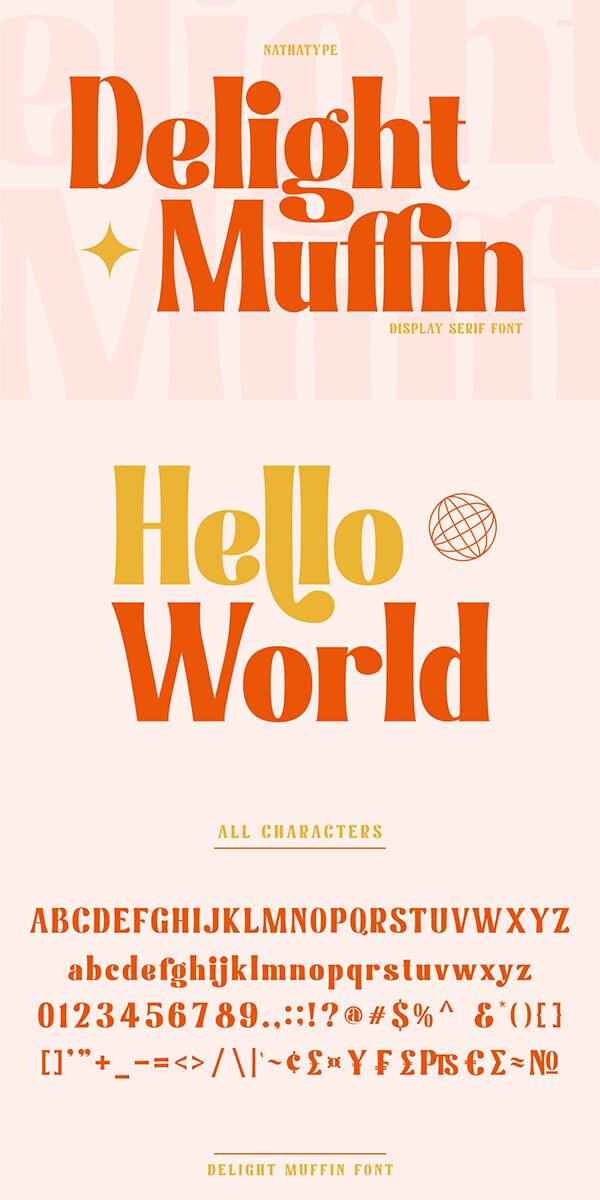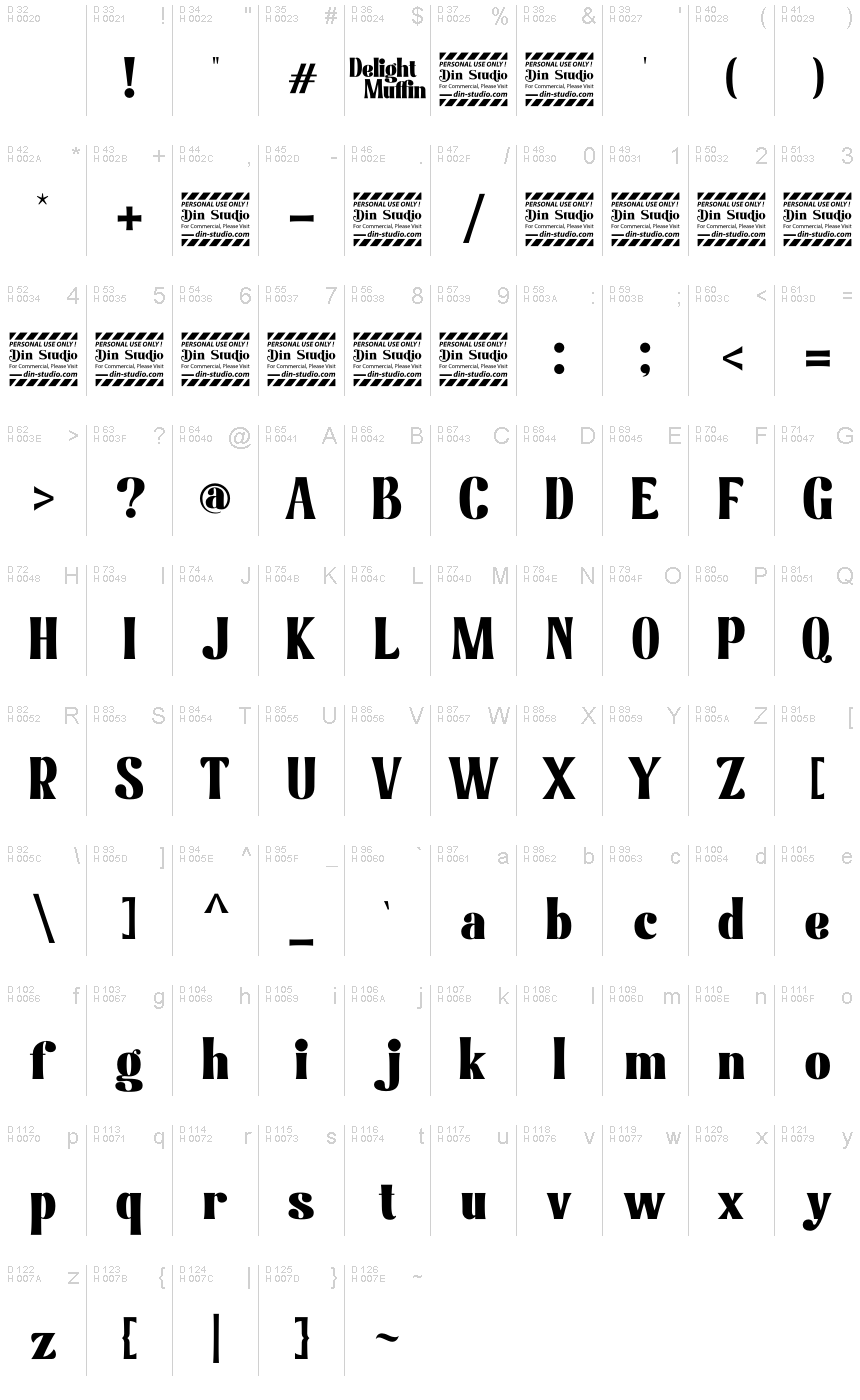
Delight Muffin Personal Use
Delight Muffin, crafted by Nathatype, embodies a bold charisma with its serif flair, offering a modern twist to traditional typography. The font's richness is evident in its robust strokes and compact form, which convey strength and sophistication. Its serifs add a classic touch that complements the assertive presence of the letterforms.
Ideal for headlines or statements that demand attention, Delight Muffin's condensed style ensures impactful readability without occupying excessive space. It's perfect for branding, editorial designs, and any project where elegance and potency need to coexist harmoniously.
Delight Muffin is Playful Display Font